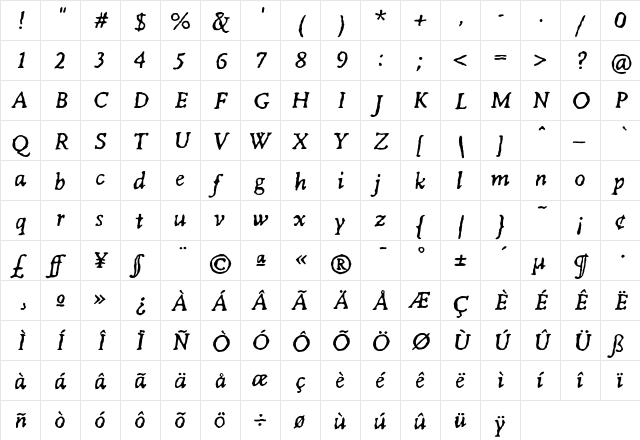
Irregular Italic
Design Context for Irregular Typeface
Irregular is a composed and adaptable typeface that performs quietly and consistently across a wide range of design contexts. The dynamic lean of this cut emphasises speed and emphasis in any layout.